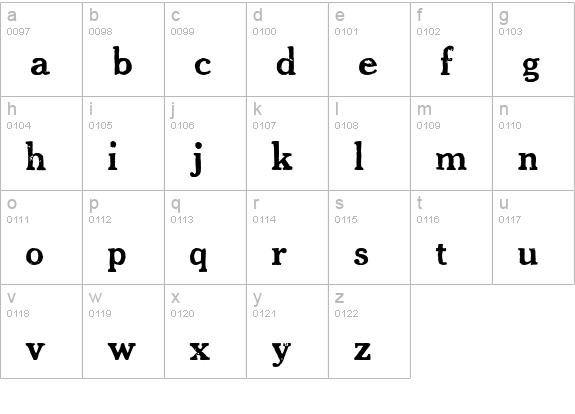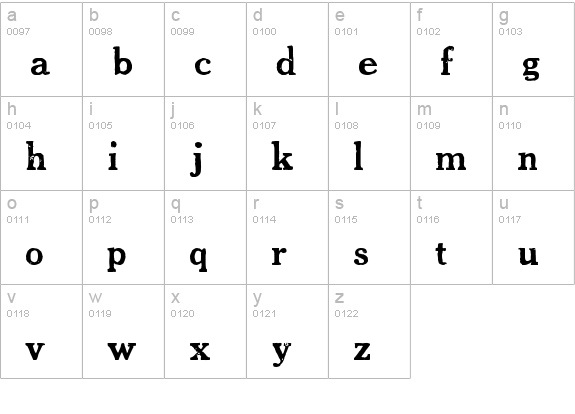
CheltPressDark Font Details
CheltPressDark is a stylish and versatile font that exudes a sense of elegance and sophistication. Its bold strokes and intricate details make it perfect for creating eye-catching designs that demand attention. This font is sure to add a touch of flair to any project, whether it be for branding, advertising, or creative endeavors. The best part? CheltPressDark is completely free to download at FontsMarket.com. This means you can access this stunning font without any cost, making it an ideal choice for designers on a budget or those looking to experiment with new typefaces. Don't miss out on the opportunity to enhance your designs with the unique charm of CheltPressDark - download it today and let your creativity flourish!